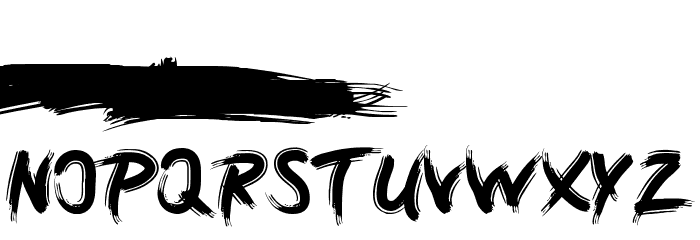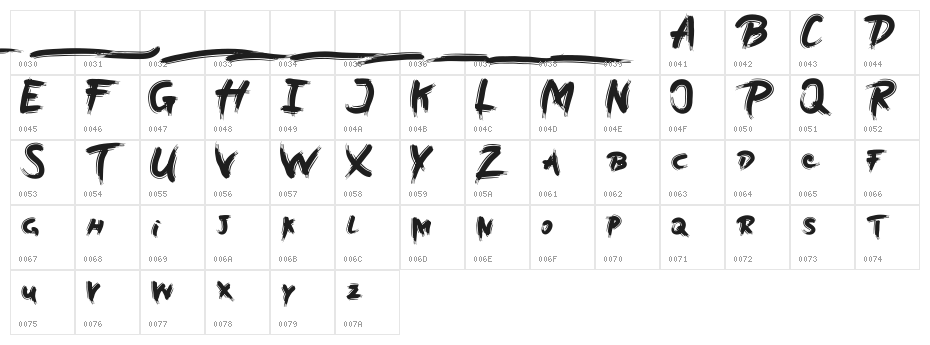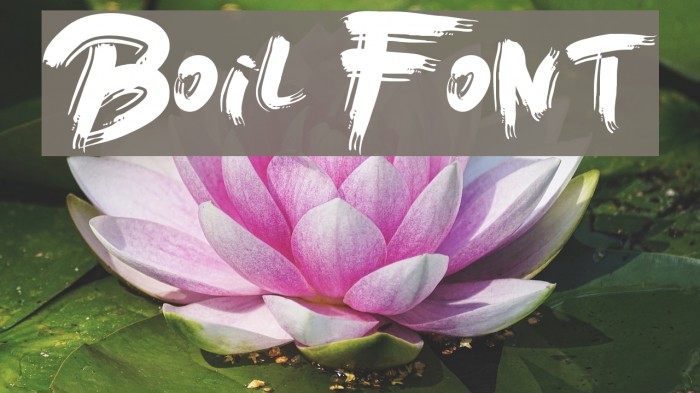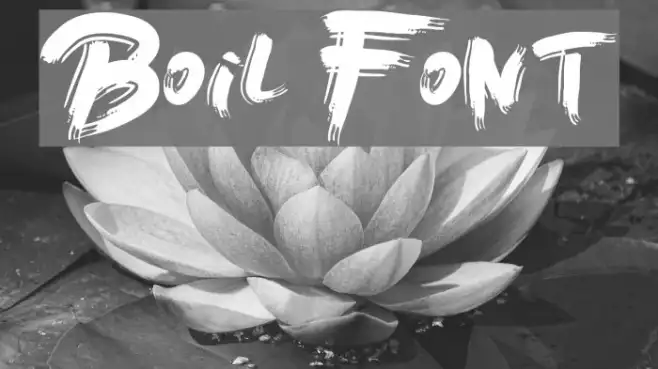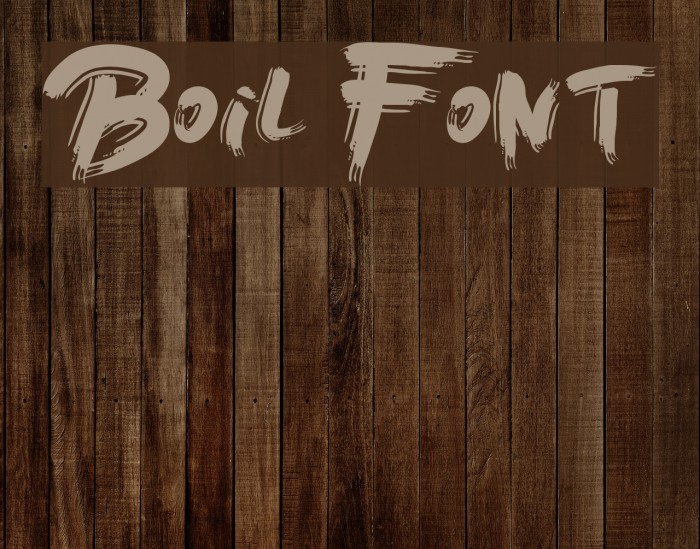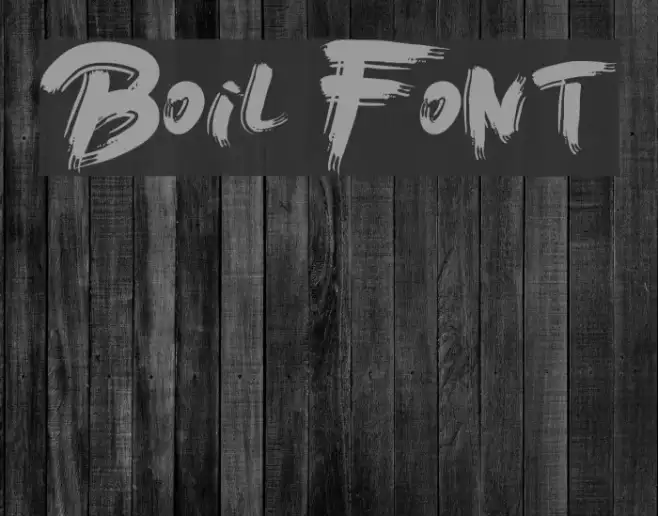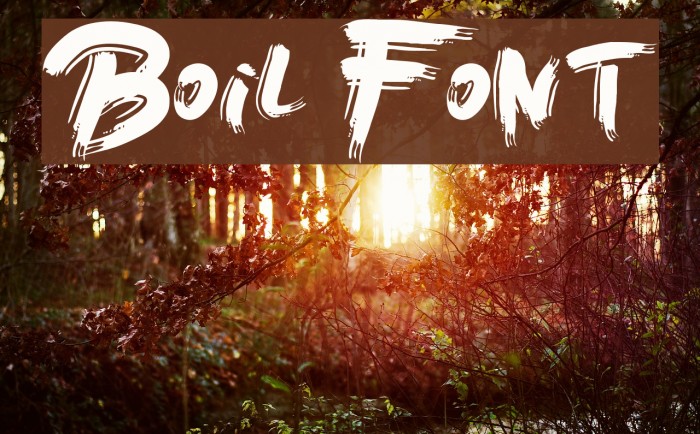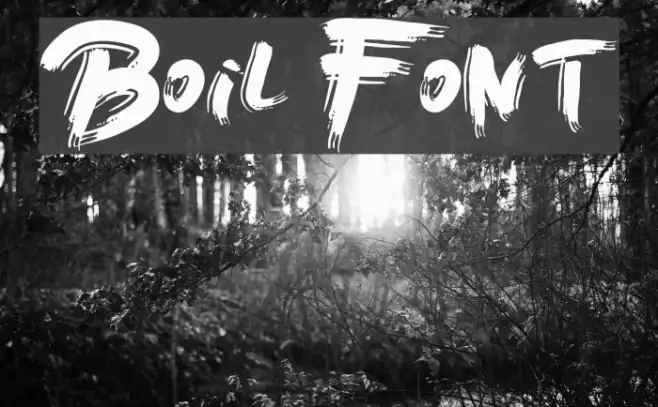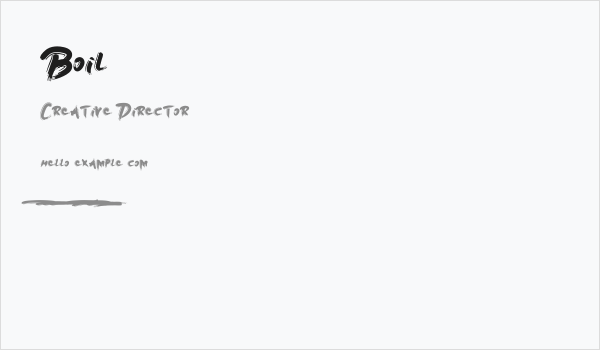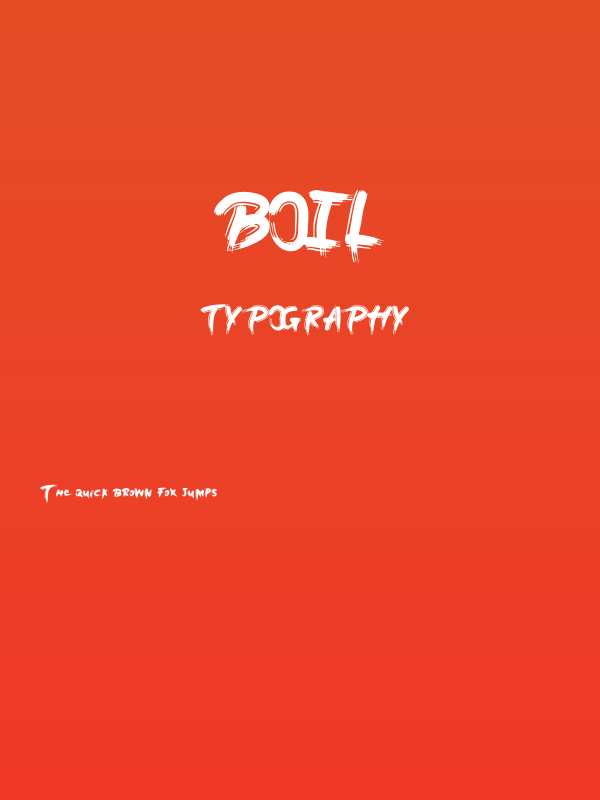
Boil Font
Boil Description
This font features a bold and dynamic brushstroke style, giving it a hand-painted appearance. The letters are characterized by their uneven edges and varying stroke thickness, which adds a sense of movement and energy. The uppercase and lowercase letters maintain a consistent style, with a slightly aggressive flair that suggests speed and spontaneity. The numbers and special characters follow the same artistic approach, making the font suitable for projects that require a bold and artistic touch. The overall impression is one of creativity and expressiveness, ideal for making a strong visual impact.
| Proposed Projects | Ideal for posters, album covers, branding, and any project that requires a bold artistic statement. |